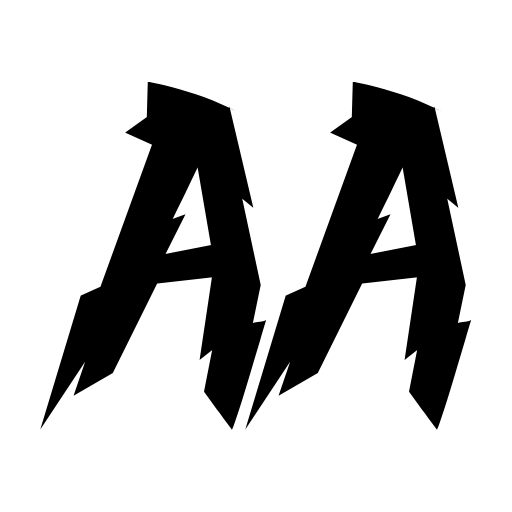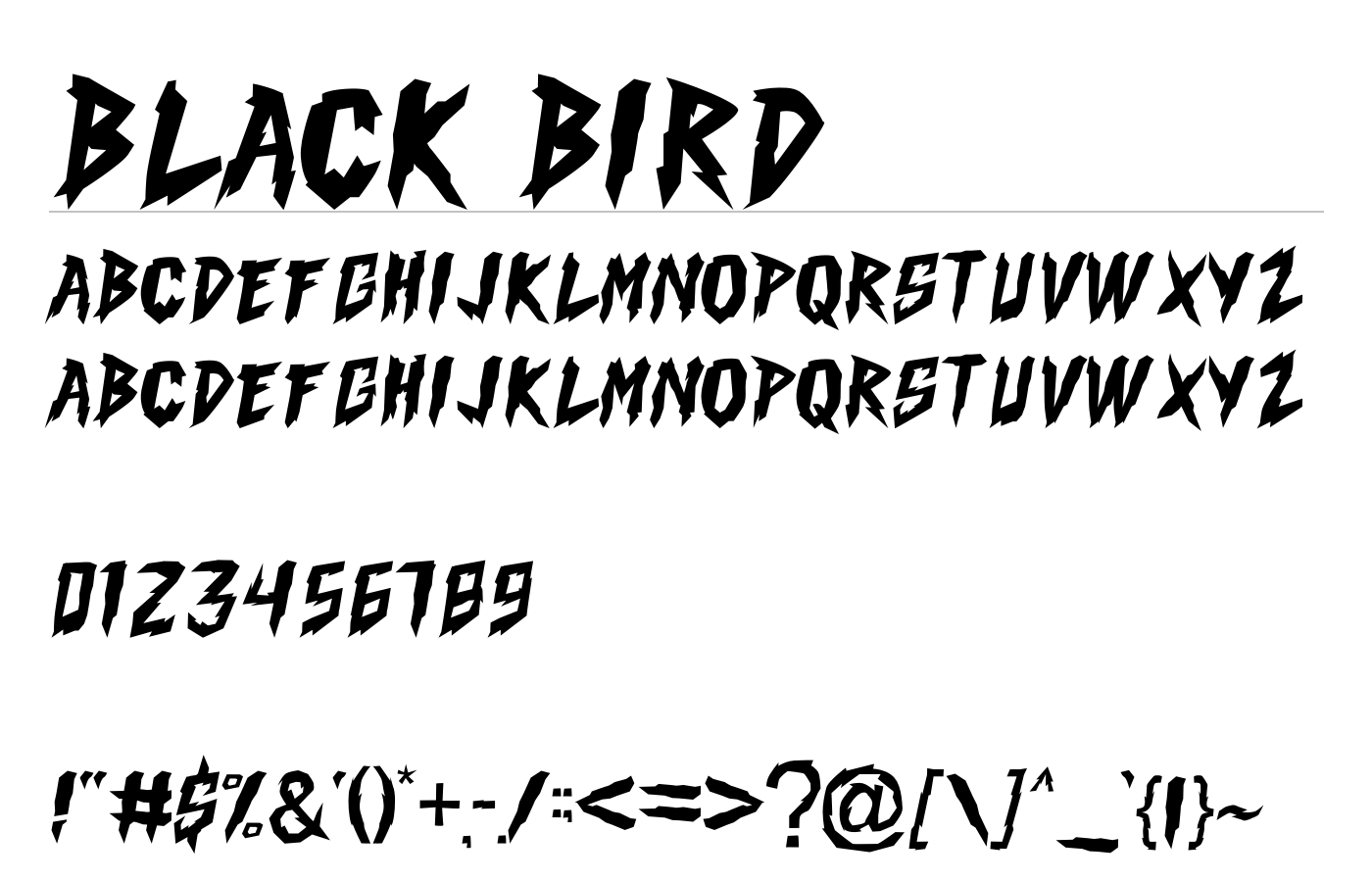
Black Bird is a bold, edgy display font with sharp, jagged letterforms that evoke a sense of energy and intensity. Its all-caps design and dynamic, irregular strokes make it perfect for striking headlines, logos, and projects that want to convey a rebellious or adventurous spirit. This font works best in designs needing a strong visual impact and a unique, daring personality.
Black Bird Font
About Black Bird Font
| Font family | Black Bird Font |
| Designer | Yudistira |
| Trademark | Makna Studio |